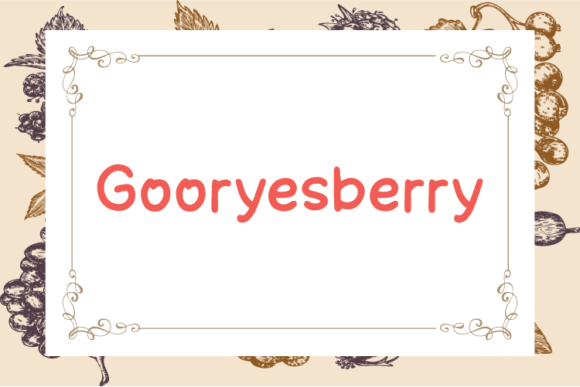
Discover the Unique Charm of Gooryesberry Font: Elevate Your Designs with a Personal Touch
In the vast universe of digital typography, finding a font that stands out from the crowd can be a daunting task. However, for those in the know, Gooryesberry Font is a gem that shines brightly. This natural handwritten font has captured the hearts of designers and crafters alike with its distinctive characteristic: not a single node in each character’s indentation is altered. This unique feature lends Gooryesberry an unparalleled authenticity and charm, making it the perfect choice for a wide range of design projects.
The Distinctive Features of Gooryesberry Font
Gooryesberry Font is more than just a typeface; it’s an expression of personality and creativity. Its natural, handwritten aesthetic brings a warmth and personal touch to any design, setting it apart from more conventional fonts. The key to its uniqueness lies in its design philosophy: each character is crafted with meticulous attention to detail, preserving the organic feel of handwriting. This approach ensures that Gooryesberry remains true to its roots, offering a genuine and relatable look that resonates with audiences.
One of the standout features of Gooryesberry is its versatility. Whether you’re working on a quote, a note, a t-shirt design, or any product that requires a personal and creative touch, this font adapts seamlessly. Its legibility and flow make it suitable for both short phrases and longer texts, allowing designers to experiment with various layouts and styles.
Applications of Gooryesberry Font
The applications of Gooryesberry Font are vast and varied, limited only by your imagination. Here are a few ideas to get you started:
- Quotes and Inspirational Messages: Add a touch of elegance and personal warmth to your motivational quotes and sayings.
- Notes and Journals: Give your digital or printed notes a unique and inviting look that stands out.
- T-Shirts and Apparel: Design eye-catching and memorable tees that speak to your audience’s personality.
- Product Design: From packaging to branding, Gooryesberry can add a distinctive flair to your products.
- Social Media Graphics: Elevate your social media presence with custom graphics that showcase your personality or brand’s voice.
Why Designers and Crafters Love Gooryesberry
Gooryesberry Font has quickly become a favorite among designers and crafters for several reasons:
- Uniqueness: In a sea of similar fonts, Gooryesberry’s distinctive style makes it a breath of fresh air.
- Versatility: Its adaptability to various design projects and contexts is unparalleled.
- Authenticity: The font’s natural, handwritten look lends an air of authenticity to designs.
- Easy to Read: Despite its unique style, Gooryesberry remains highly legible, making it practical for a wide range of applications.
Gooryesberry Font is more than just a typeface; it’s a tool for creative expression. Its unique blend of natural authenticity and versatility makes it an invaluable asset for designers and crafters looking to add a personal touch to their work. Whether you’re creating quotes, notes, tees, or product designs, Gooryesberry offers a distinctive charm that can elevate your projects from ordinary to extraordinary. Discover the possibilities with Gooryesberry Font and let your creativity shine.